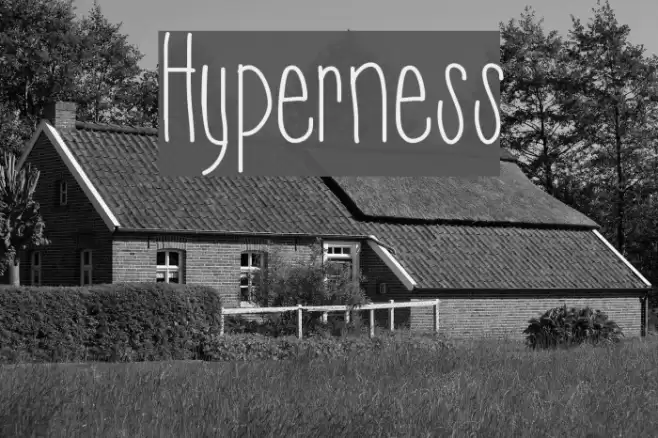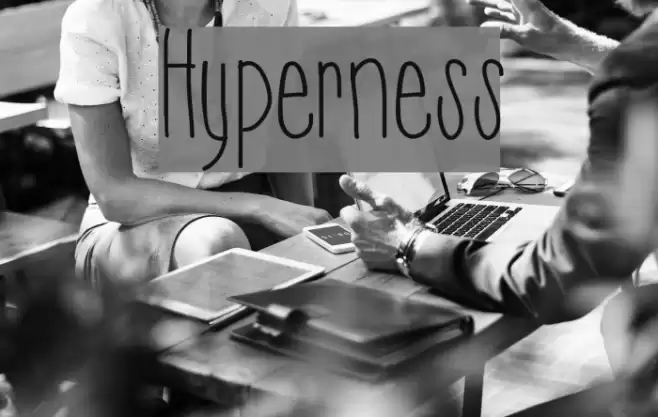
Hyperness Font
Hyperness Description
This font features a playful and whimsical handwritten style, characterized by tall, narrow letters with a consistent stroke width. The letters have a slightly irregular baseline, adding to the casual and informal feel. The uppercase and lowercase letters maintain a cohesive look, with rounded edges and a friendly appearance. The numerals and special characters are designed to match the overall style, ensuring a harmonious look across all text. This font is ideal for projects that require a personal touch or a fun, approachable aesthetic.
A playful, handwritten font with tall, narrow letters and a casual style from Uncategorized fonts.
- Proposed Projects: Ideal for greeting cards, children's books, playful branding, and social media graphics.
- Overall Style: Casual, Playful
- Use Case: Headlines, Informal text, Creative projects